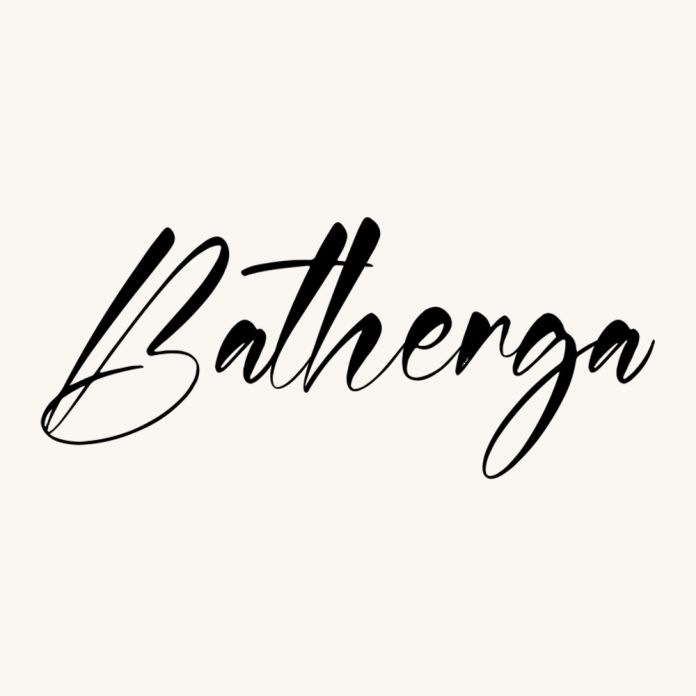
Batherga a modern and minimal typeface packed with handwritten ligatures. Stylish Signature adds a chic elegance to websites, wedding stationery, modern logos and personal branding, social media quotes, and more.